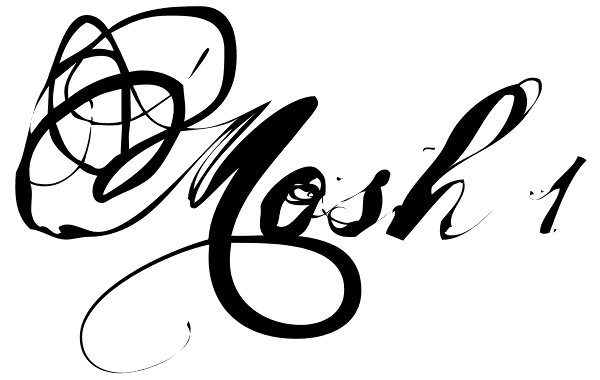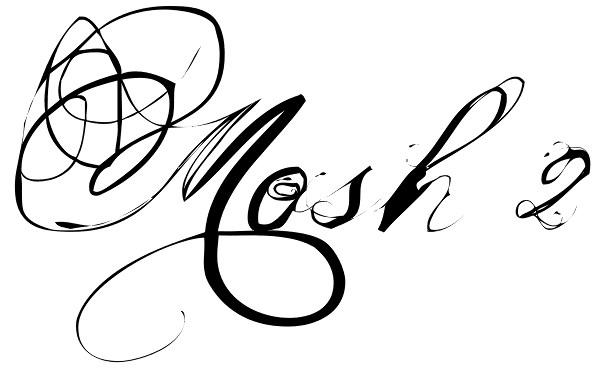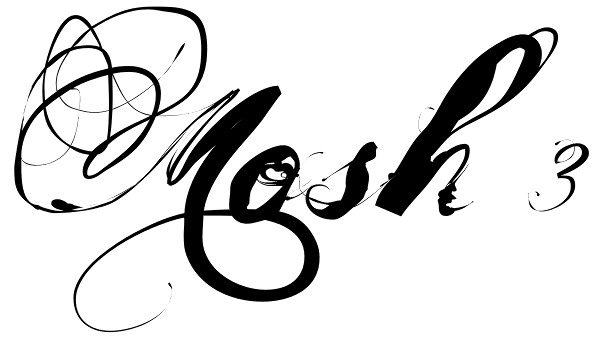
Mosh
Mosh is a grunge script typeface that plays with stroke width and Swashes. The font family come with 4 typefaces: Mosh 1 (regular), Mosh 2 (Alternate), Mosh 3 (Light) and Mosh X, which has some swashes and other dirty stains to incorporate into the...
Mosh 1
Mosh 2
Mosh 3
Mosh X